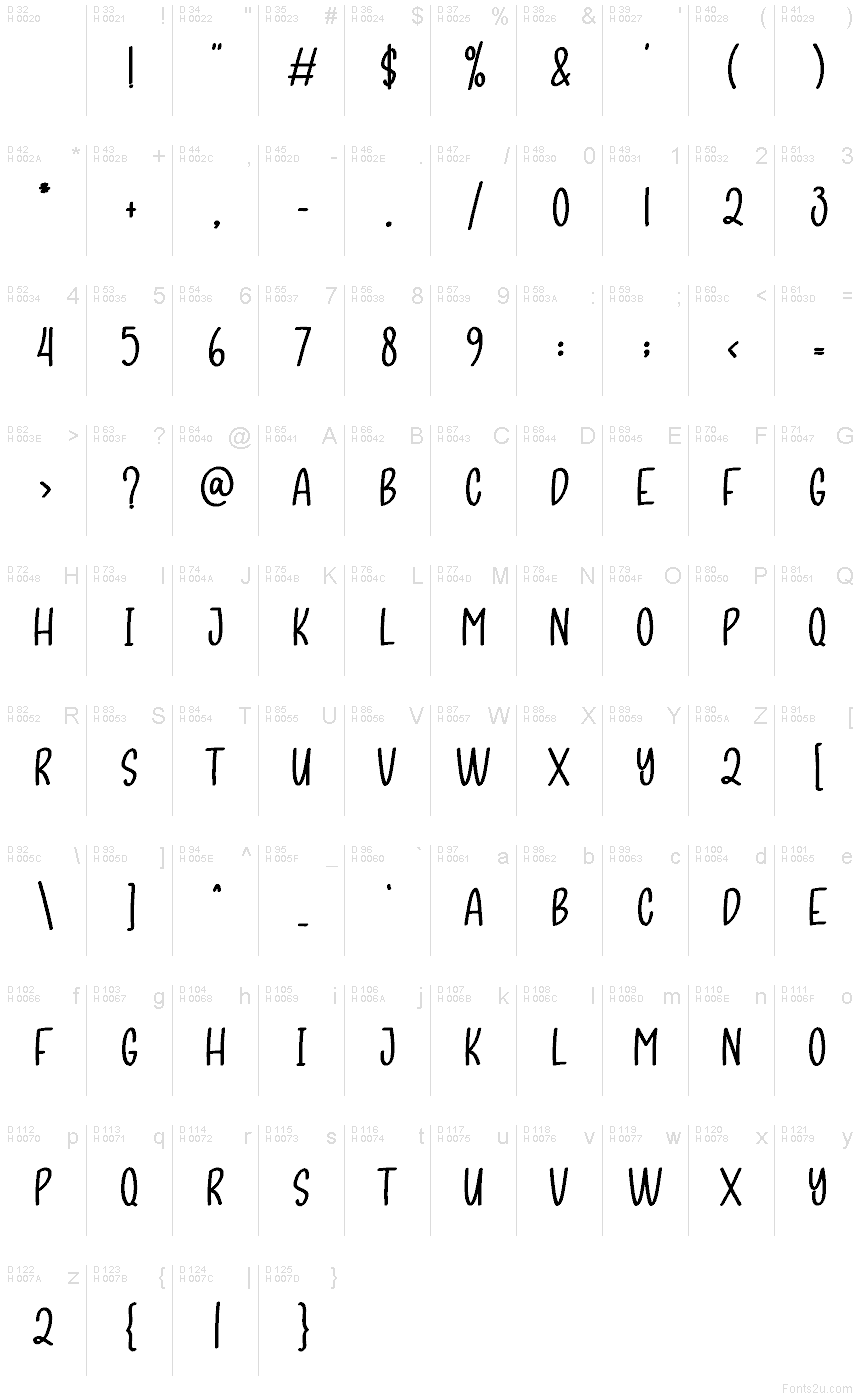
Ice Skating
Ice Skating font by Andi Moz is a condensed handwritten font that feels casual and approachable. Quirky and full of energy, it’s also contemporary with an interesting design style. Give your projects a unique attention-grabbing twist using this free typeface.